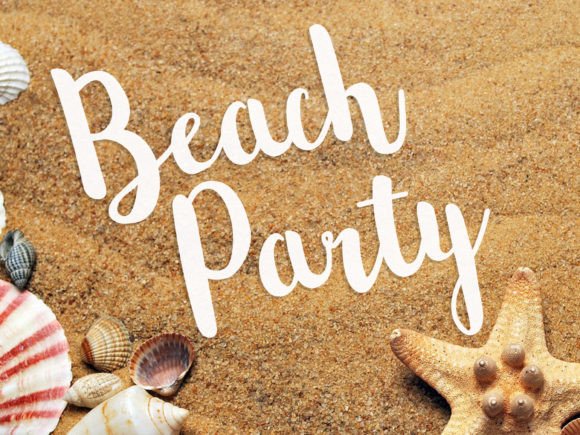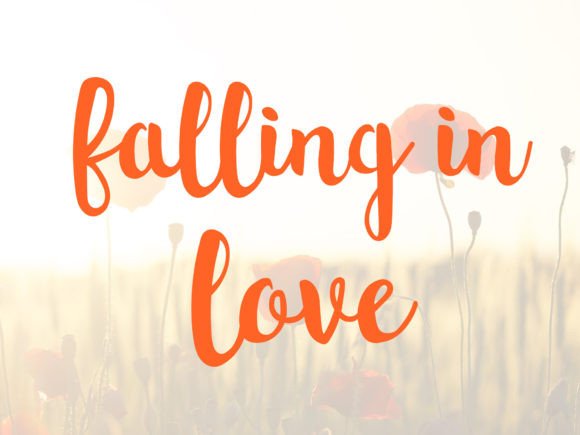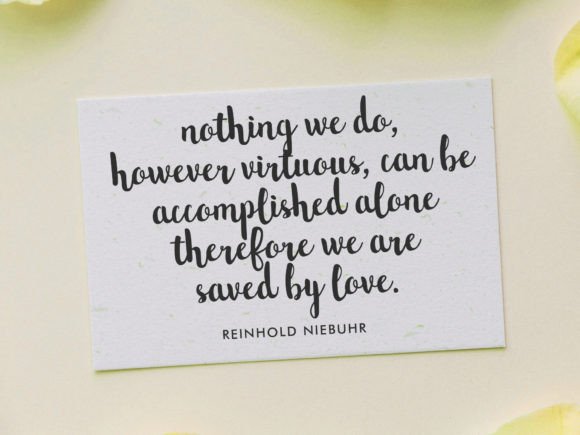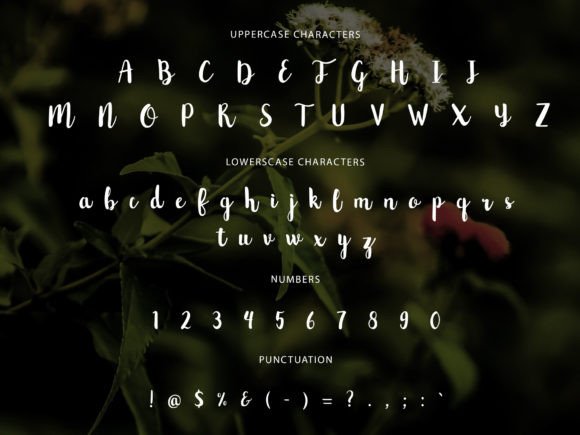
Introduction to Pearlemon Font
Have you ever found yourself lost in the world of endless design possibilities, searching for that perfect font to bring your creative vision to life? For many designers, this is a daily struggle. But what if I told you that the perfect script font is just a click away? Introducing the magical Pearlemon Font, a high-quality design resource that’s sure to elevate any creative project.
Pearlemon Font is more than just a beautiful script – it’s a game-changer for designers looking to add a touch of elegance to their work. With its transparent background and free download option, it’s the perfect addition to any design arsenal. Whether you’re working on a DIY project, creating a social media post, or designing a brand identity, Pearlemon Font is the perfect tool to help you achieve your creative goals.
Key Features of Pearlemon Font
- High-quality, elegant design perfect for creative projects requiring a touch of sophistication.
- Includes a range of characters, including uppercase and lowercase letters, numbers, and special symbols, making it a versatile design resource.
Honest Review: Pearlemon Font
I recently came across the Pearlemon Font, and I was excited to see if it would be a valuable addition to my design resources. As a designer, I’m always on the lookout for high-quality fonts that can elevate my creative projects.
The Pearlemon Font is a beautiful, elegant font that’s perfect for a variety of design needs. Here are some of its strengths: ✨
- High-quality design: The font has a crisp, clean appearance that makes it perfect for print and digital projects.
However, I did encounter a few limitations: ⚠️
- Limited customization options: The font doesn’t offer a wide range of customization options, which might be a drawback for designers who want more control over their designs.
Overall, I was impressed with the Pearlemon Font’s high-quality design and versatility. While it has some limitations, it’s still a valuable resource for designers who are looking for a elegant font to add to their creative projects.
The Pearlemon Font is perfect for a variety of creative projects, including logos, branding materials, and social media graphics. Its elegant and sophisticated design makes it ideal for use in presentations, reports, and other professional documents. Whether you’re working on a design project or simply need a high-quality font for everyday use, the Pearlemon Font is a great choice.